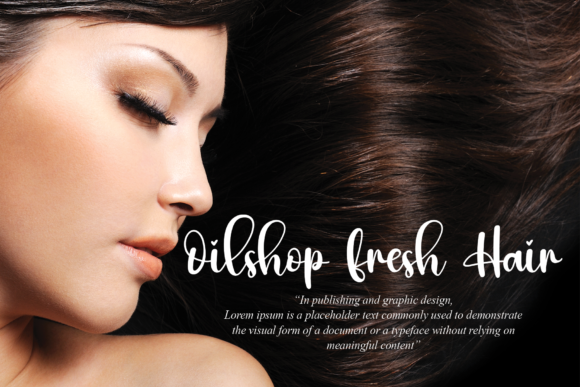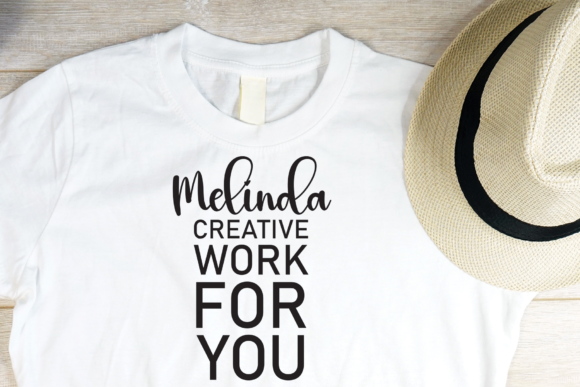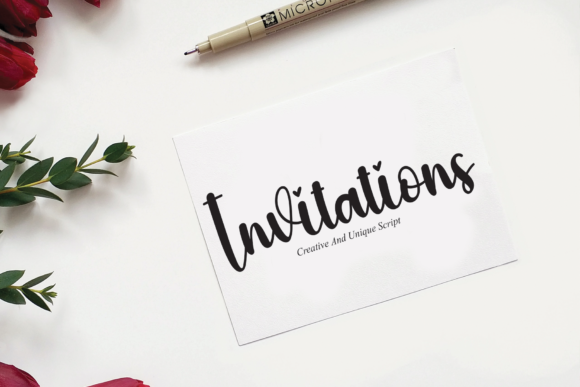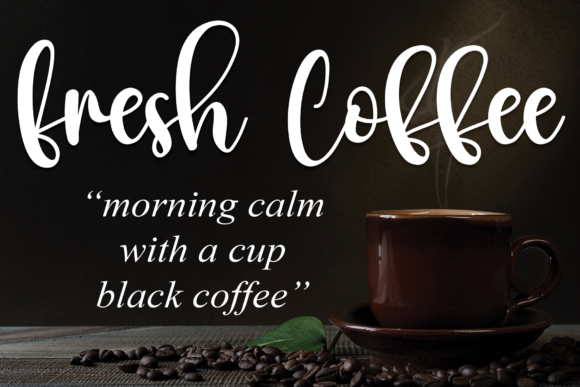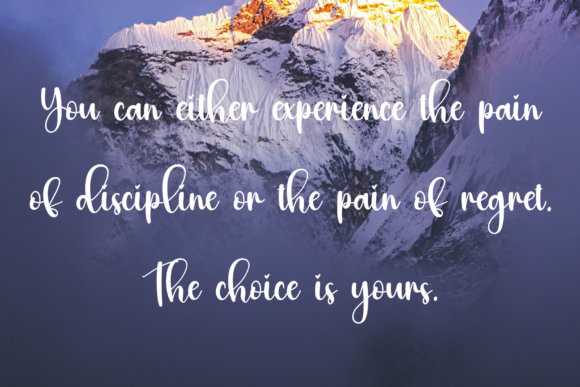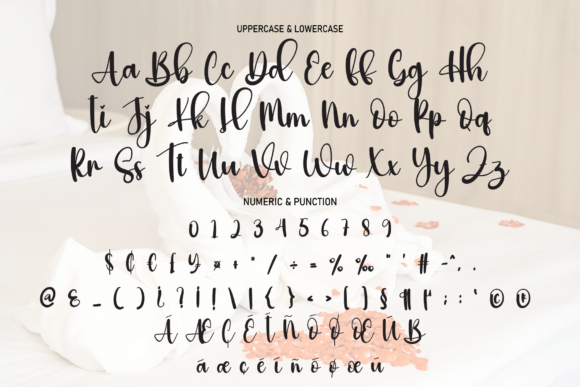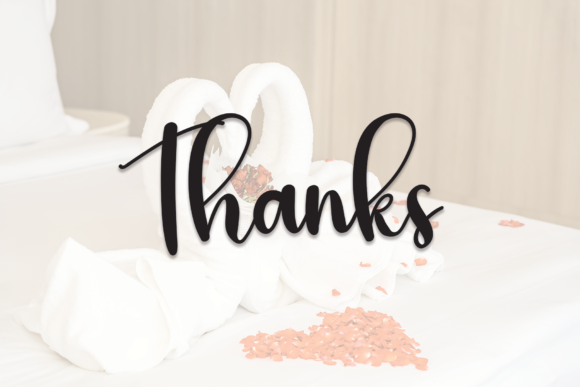
Vacation Honeymoon Font
About Vacation Honeymoon Font
The latest style letters are a versatile addition to any designer’s toolkit, offering a perfect blend of elegance and charm suitable for a wide range of creative projects. Whether you’re working on wall displays, wedding invitations, social media post logos, advertisements, product packaging, product designs, labels, photography, watermarks, invitations, stationery, or any project that requires a handwritten touch, these letters are sure to meet your needs with finesse.
Their timeless appeal makes them ideal for conveying emotions and adding a personal touch to your designs. Whether you’re creating a heartfelt wedding invitation or a captivating advertisement, the latest style letters bring a sense of authenticity and warmth that resonates with your audience.
Moreover, their versatility knows no bounds. From elegant wedding stationery to playful social media graphics, these letters adapt effortlessly to various themes and aesthetics, ensuring consistency and coherence across all your design projects.
In addition to their aesthetic appeal, the latest style letters are also highly practical. Their clean and legible forms ensure readability across different mediums and platforms, guaranteeing that your message is effectively communicated to your audience, whether it’s through print materials or digital channels.
Furthermore, the latest style letters offer endless creative possibilities. Whether you’re crafting product packaging, designing labels, or watermarking your photography, these letters provide the perfect canvas for expressing your unique vision and creativity.
In summary, the latest style letters are a versatile and indispensable tool for designers looking to add a handwritten touch to their projects. With their timeless appeal, adaptability, and practicality, these letters elevate every design endeavor, making them a must-have for any creative project, big or small.